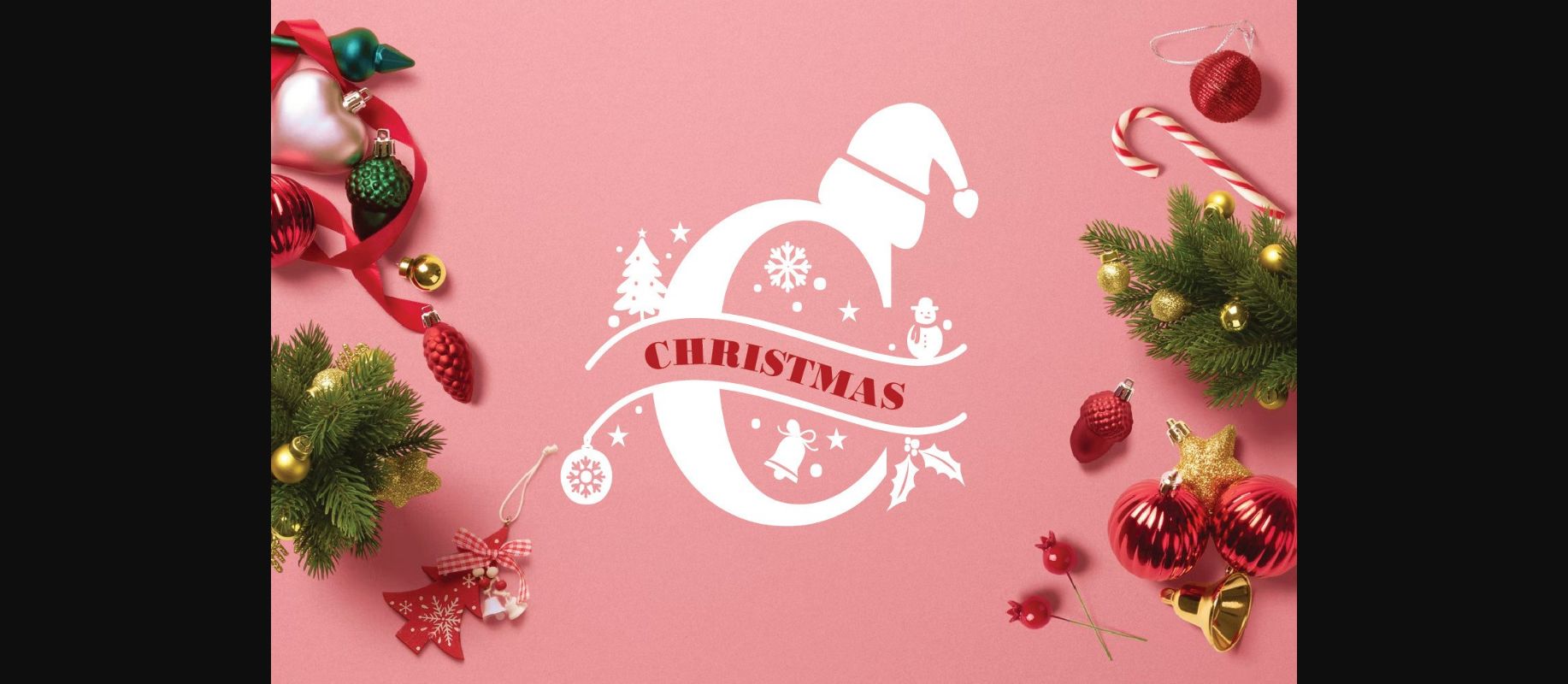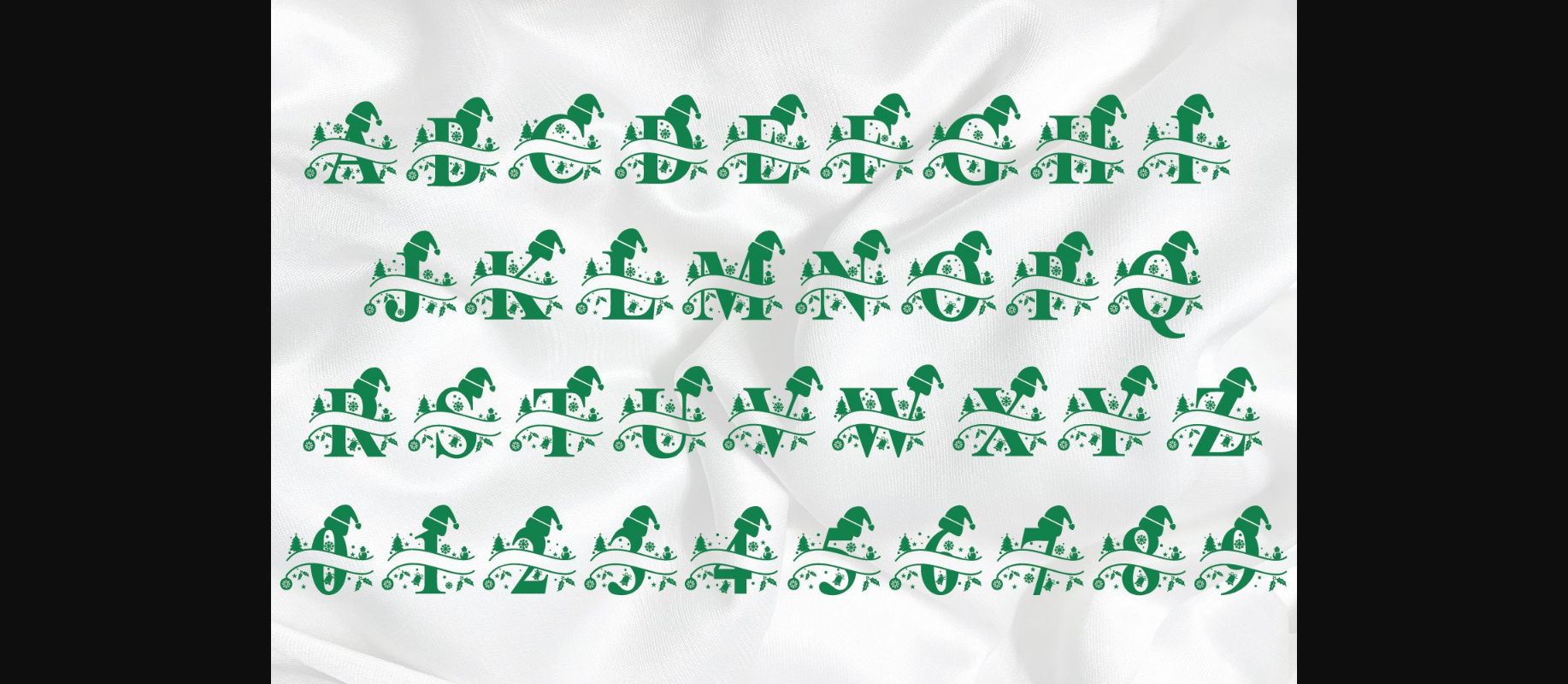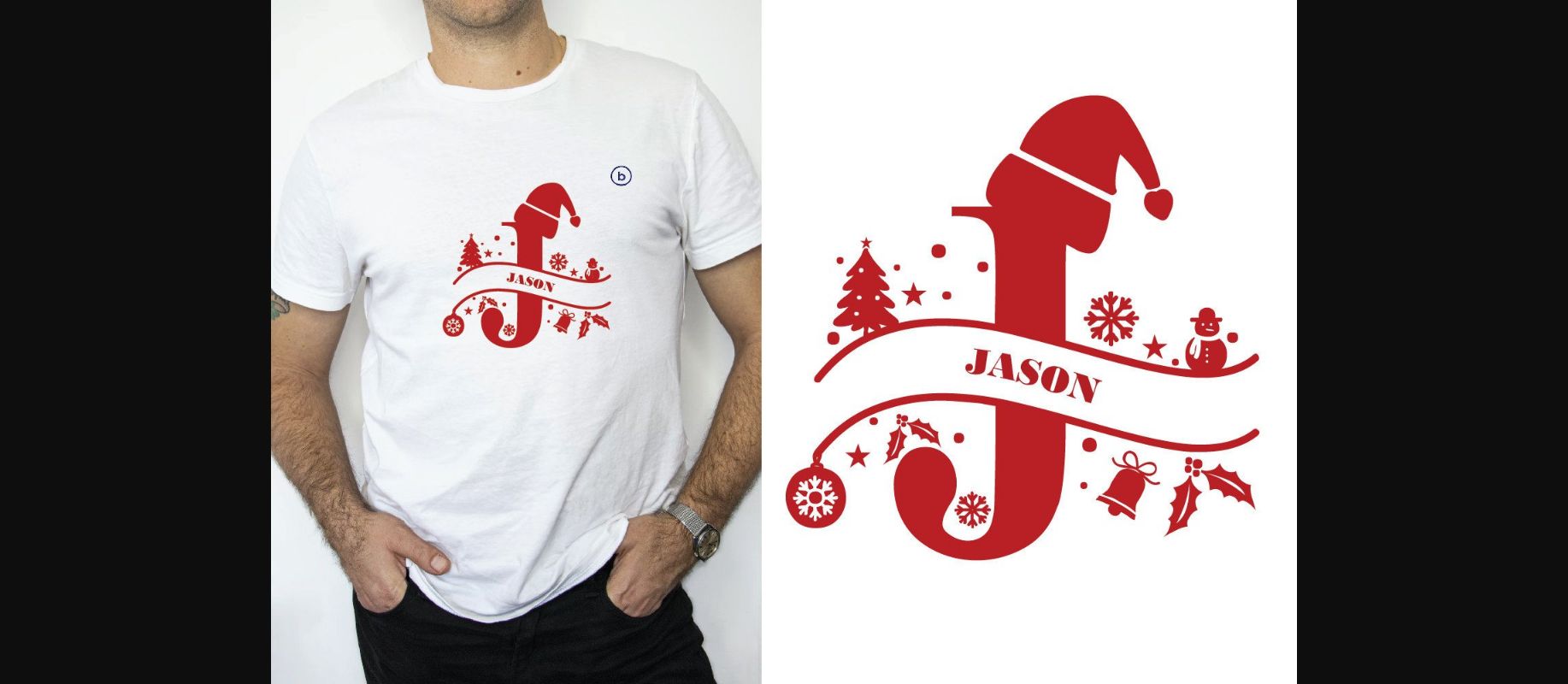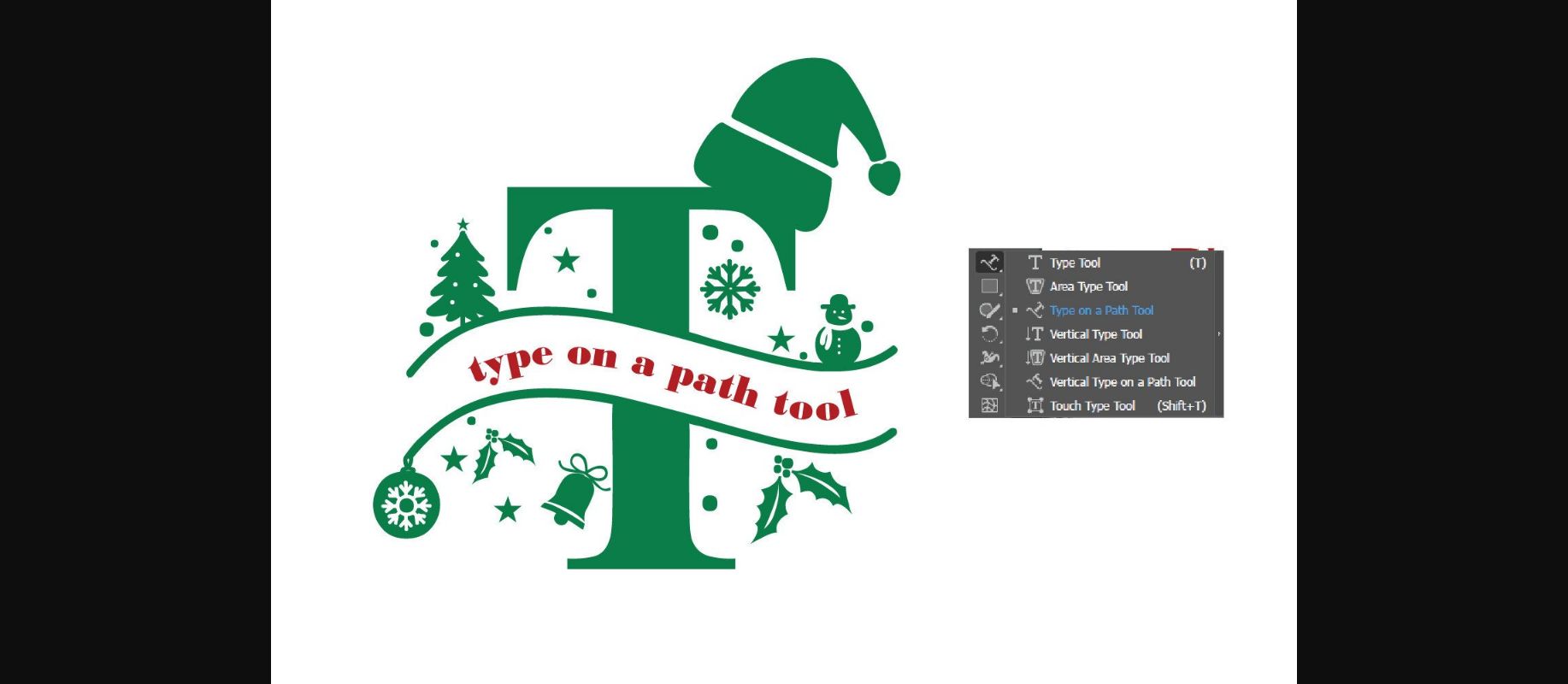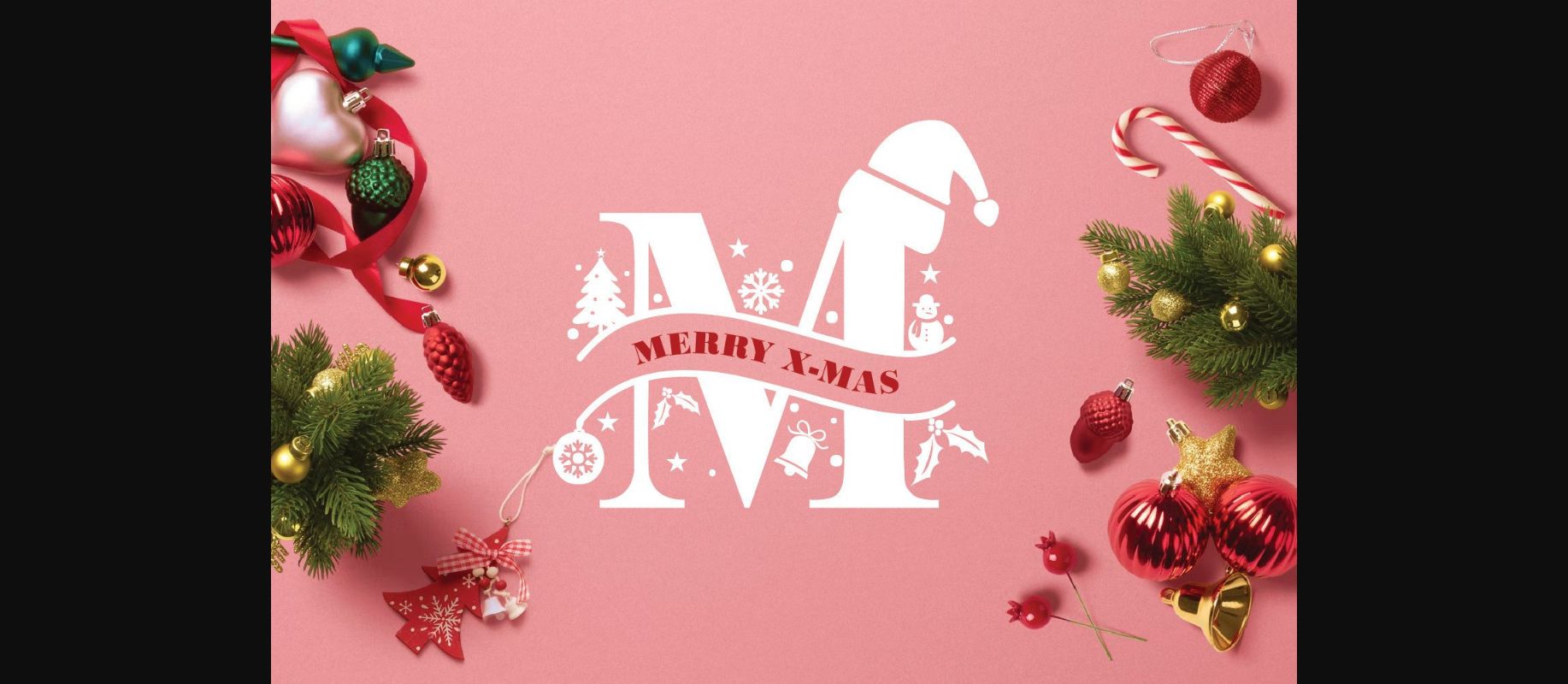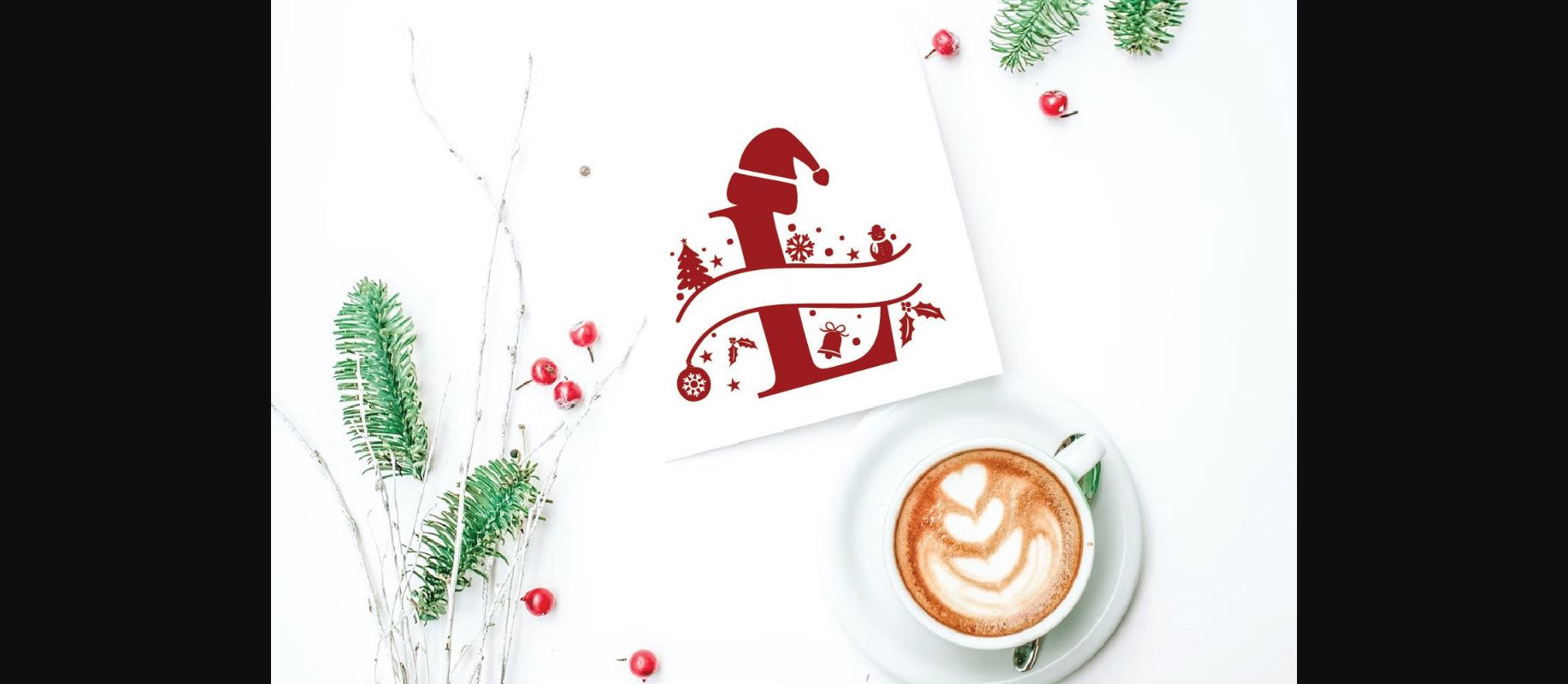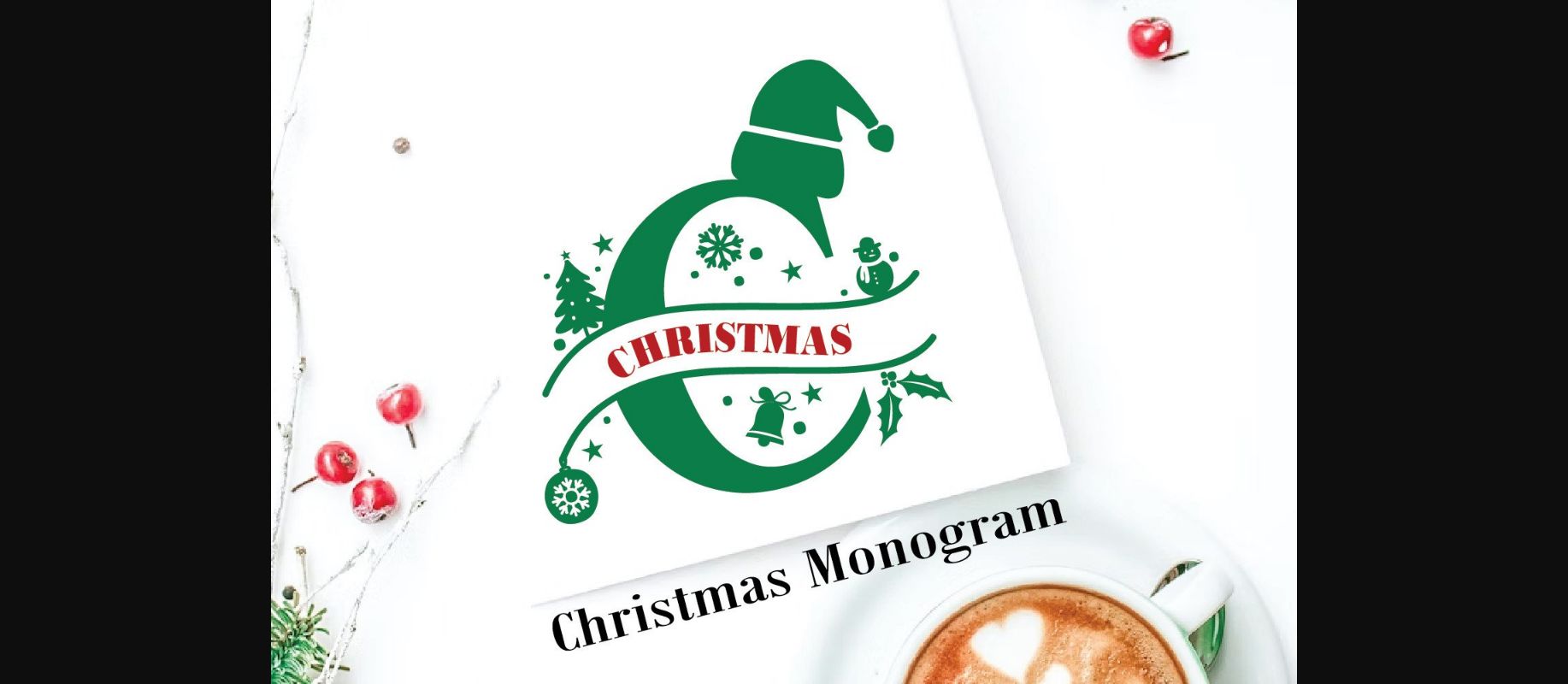
Christmas is a cute decorative monogram font. It has an amazing look for Christmas designs, shirts, crafts, and more and will instantly enhance your projects!